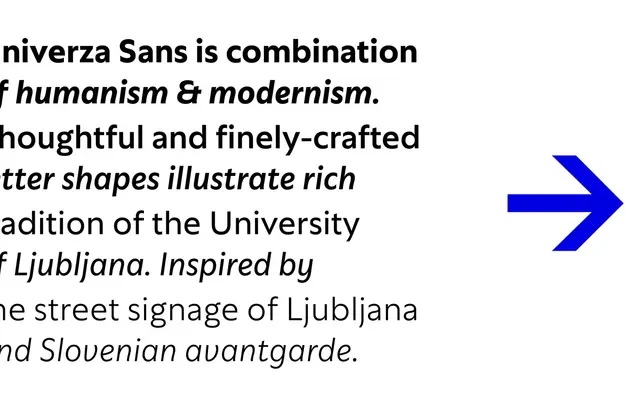
Univerza Sans
Type Salon · Alja Herlah · 2022
Commissioned for the centenary of the University of Ljubljana, this sans draws on Slovenian avant-garde and typographic heritage to serve a broad institutional range from wayfinding to academic publishing.
Designed by Alja Herlah and winner of the Brumen Biennial award for best typography in 2022, it was created specifically for the University of Ljubljana's hundredth anniversary. The family spans four weights from Light to Bold, each with an italic, giving enough range for formal correspondence, signage and scientific articles within a single coherent voice. Its Central European language support and blend of official weight with visual distinctiveness make it well suited to complex institutional identity systems.
Described as combining Slovenian avant-garde influences with recognisable Slovenian typographic forms; its functional range across identity, wayfinding and academic use places it firmly in the humanist sans tradition.